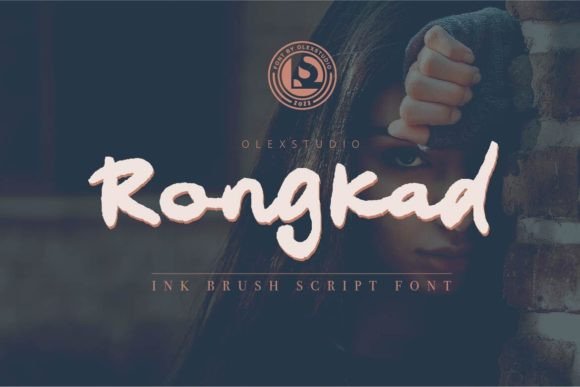
Adorn your designs with the mesmerizing Rongkad font, a script typeface that dances across the page like a gentle melody. Crafted with meticulous precision, Rongkad embodies the essence of artistry, transforming your words into elegant strokes of ink. Its expressive curves and fluid lines evoke a sense of authenticity and sophistication, adding a touch of grace to any project.
Unleash your creativity with Rongkad, the perfect font for crafting captivating CVs and cover letters that leave a lasting impression. Let your words flow beautifully, guided by the elegant strokes of this script font. With Rongkad, your CV will stand out from the crowd, showcasing your professionalism and attention to detail.
Rongkad is not just a font; it's a versatile masterpiece that lends its charm to a myriad of projects. Whether you're designing wedding invitations that exude romance, crafting logos that radiate elegance, or creating social media posts that captivate your audience, Rongkad is your trusted companion.
Immerse yourself in the world of Rongkad, a font that speaks to the heart and captivates the eye. Experience the joy of creating designs that resonate with authenticity, sophistication, and a touch of artistic flair. Let Rongkad be your muse, inspiring you to new heights of creativity and leaving an indelible mark on your audience.